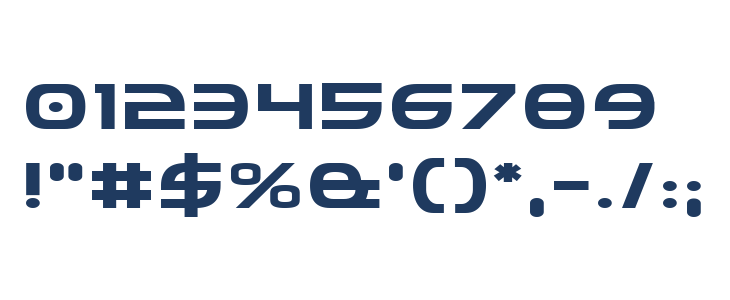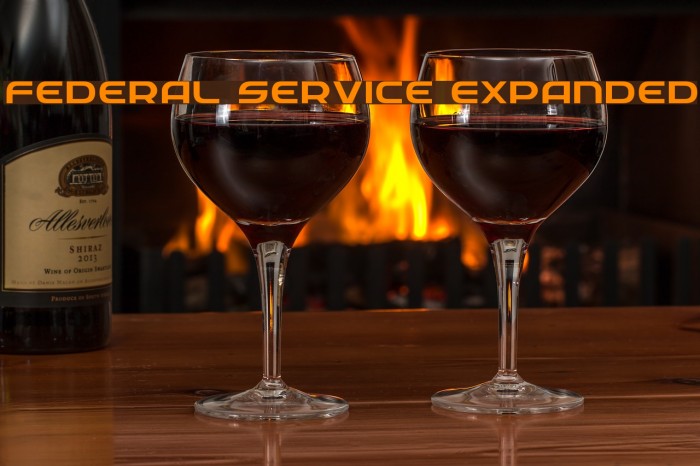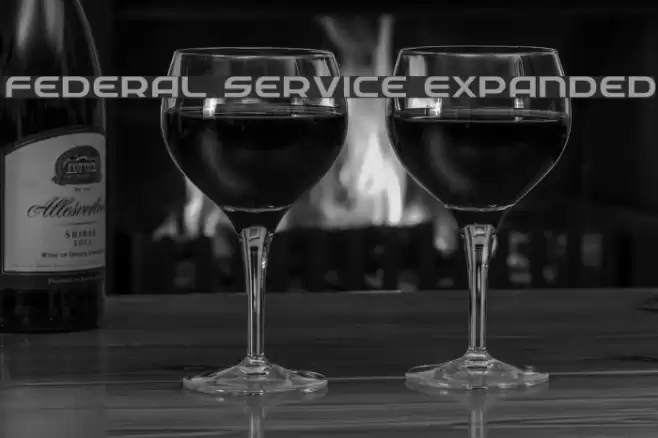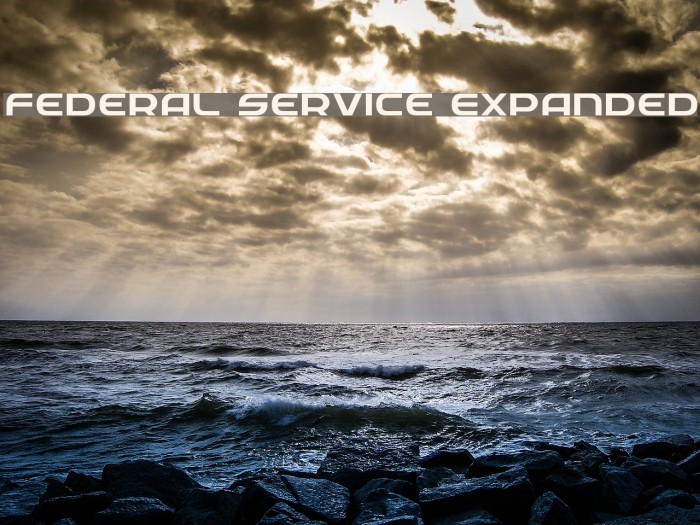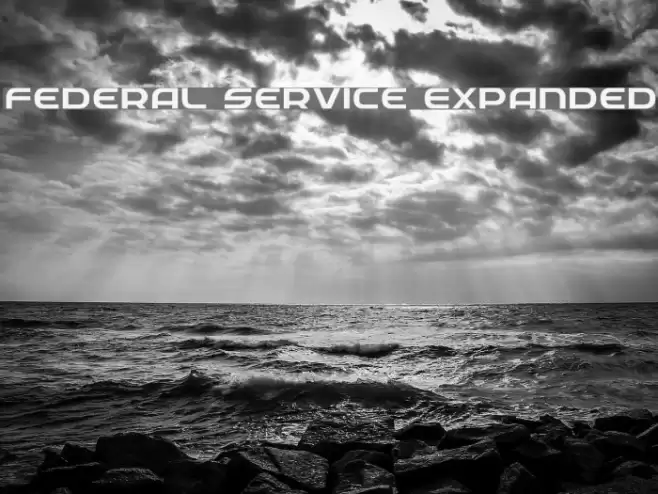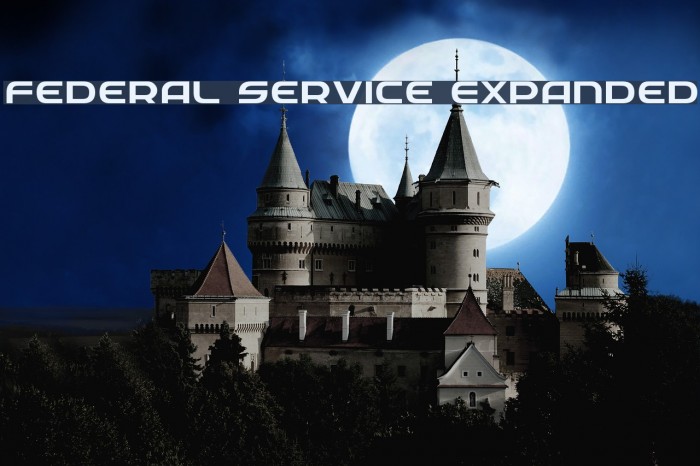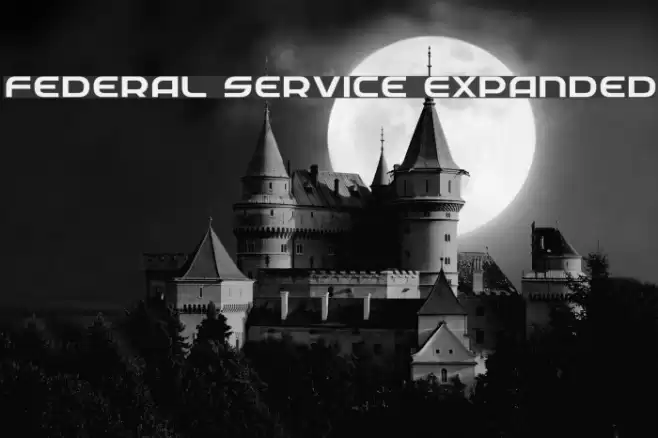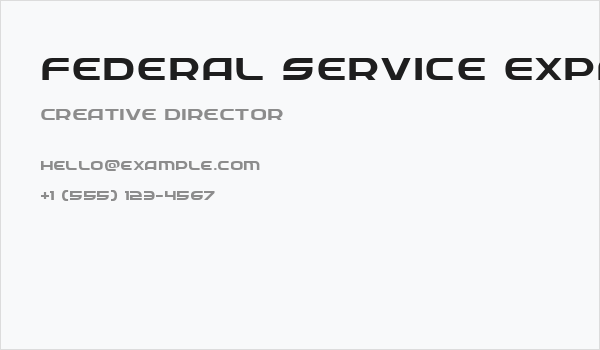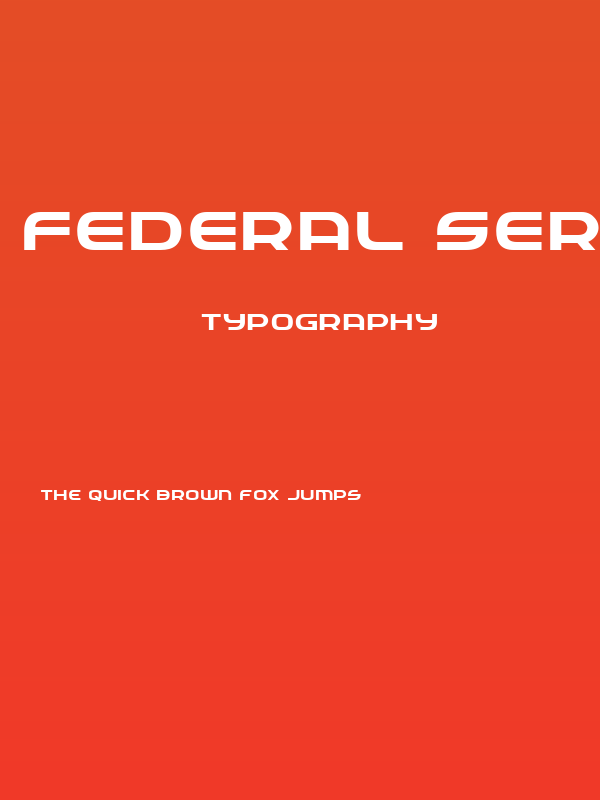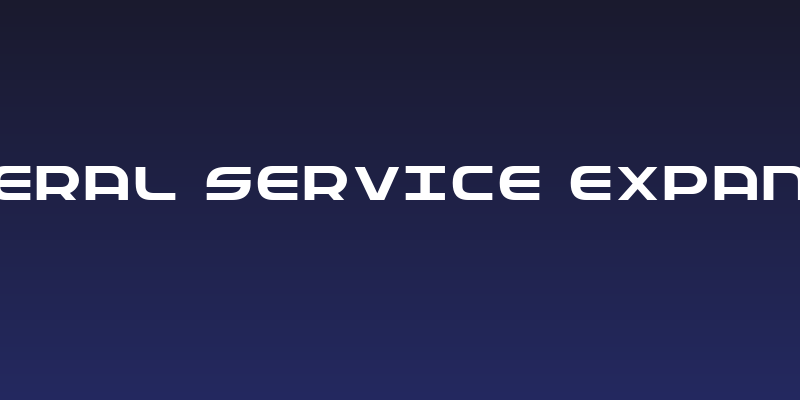
Federal Service Expanded Font
Federal Service Expanded Description
This font features a modern and geometric design with a strong emphasis on clean lines and uniformity. The characters are bold and slightly expanded, giving them a robust and impactful appearance. The uppercase and lowercase letters maintain a consistent style, with rounded edges and a futuristic aesthetic. The numerals are equally bold, ensuring readability and balance. Special characters are designed to match the overall style, providing a cohesive look across all elements. This font is ideal for projects that require a contemporary and professional feel.
| Use Case | Headlines, Logos, Digital Interfaces |
| Proposed Projects | Ideal for branding, advertising, digital interfaces, and modern editorial design. |